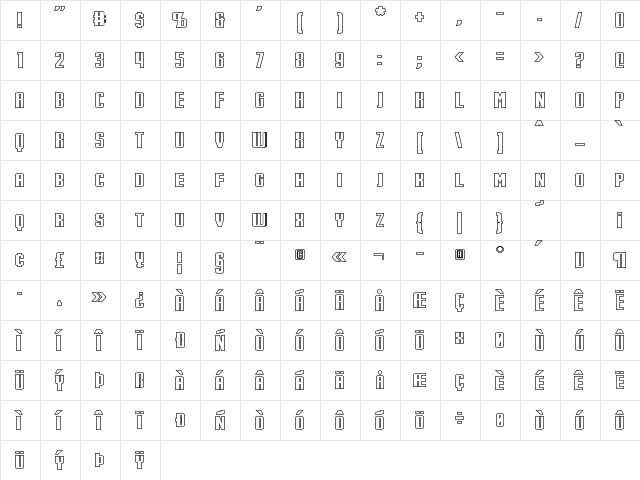
Stark Hollow Regular
| Foundry | Neale Davidson |
| Designer | Neale Davidson |
Design Context for Stark Hollow Typeface
Stark Hollow offers clean, dependable letterforms without strong stylistic allegiance, making it a practical choice for designers who need flexibility.